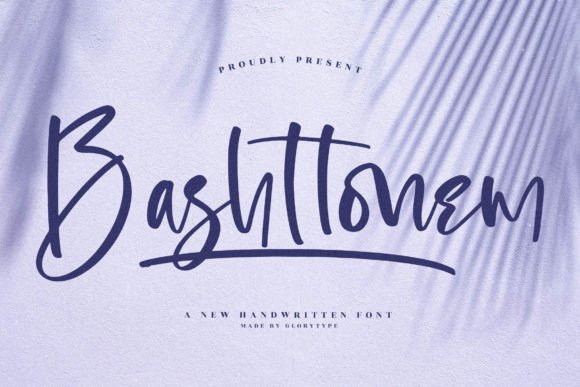
The Perfect Font for Your Next Design Project
Do you ever find yourself staring at a blank canvas, trying to come up with the perfect idea for your next design project? The blank page can be intimidating, but sometimes all it takes is one spark to get your creative juices flowing. For me, that spark was discovering the Bashttonem Font – a beautiful and timeless handwritten font that has been a game-changer for my designs.
The Bashttonem Font is perfect for creating eye-catching logos, branding, and quotes that truly stand out. With every letter having a unique and beautiful touch, your design will come alive in a way that feels both personal and professional. As a designer, having access to a versatile font like the Bashttonem Font is invaluable, allowing you to express your creativity and bring your ideas to life.
Bashttonem Font Key Features
- Unique Characteristics: Bashttonem Font features a unique blend of modern and traditional design elements, with intricate details and ornate flourishes that make it stand out from other fonts.
- Font Style: Bashttonem Font comes in three different styles: Regular, Bold, and Italic, providing users with a range of options to suit their design needs.
Bashttonem Font Review
I’ve had the chance to work with Bashttonem Font, and I must say it’s an interesting typeface. Here’s what I think:
- ✨ Unique style: Bashttonem Font has a distinctive aesthetic that can add a touch of sophistication to your designs.
- ✨ Good legibility: Despite its unconventional style, the font is surprisingly easy to read, especially at larger sizes.
- ✨ Versatility: It works well in a variety of contexts, from body text to headings and even titles.
- ⚠️ Limited character set: Bashttonem Font has a relatively small character set, which can be a problem if you need to support multiple languages.
- ⚠️ Kerning issues: I noticed some kerning problems, especially with certain letter combinations, which can affect the overall look of your design.
- ⚠️ Not suitable for small text: Due to its unconventional style, Bashttonem Font is best used for larger sizes; it can be difficult to read at smaller sizes.
Overall, Bashttonem Font is a solid choice if you’re looking for a unique typeface to add some flair to your designs. However, its limitations may make it less suitable for complex projects or applications that require a high level of precision.
Bashttonem Font is ideal for use in invitations, greeting cards, and other creative projects where a unique and elegant script font is desired. It’s also a great choice for use in logos, branding, and other design projects where a distinctive font is needed.